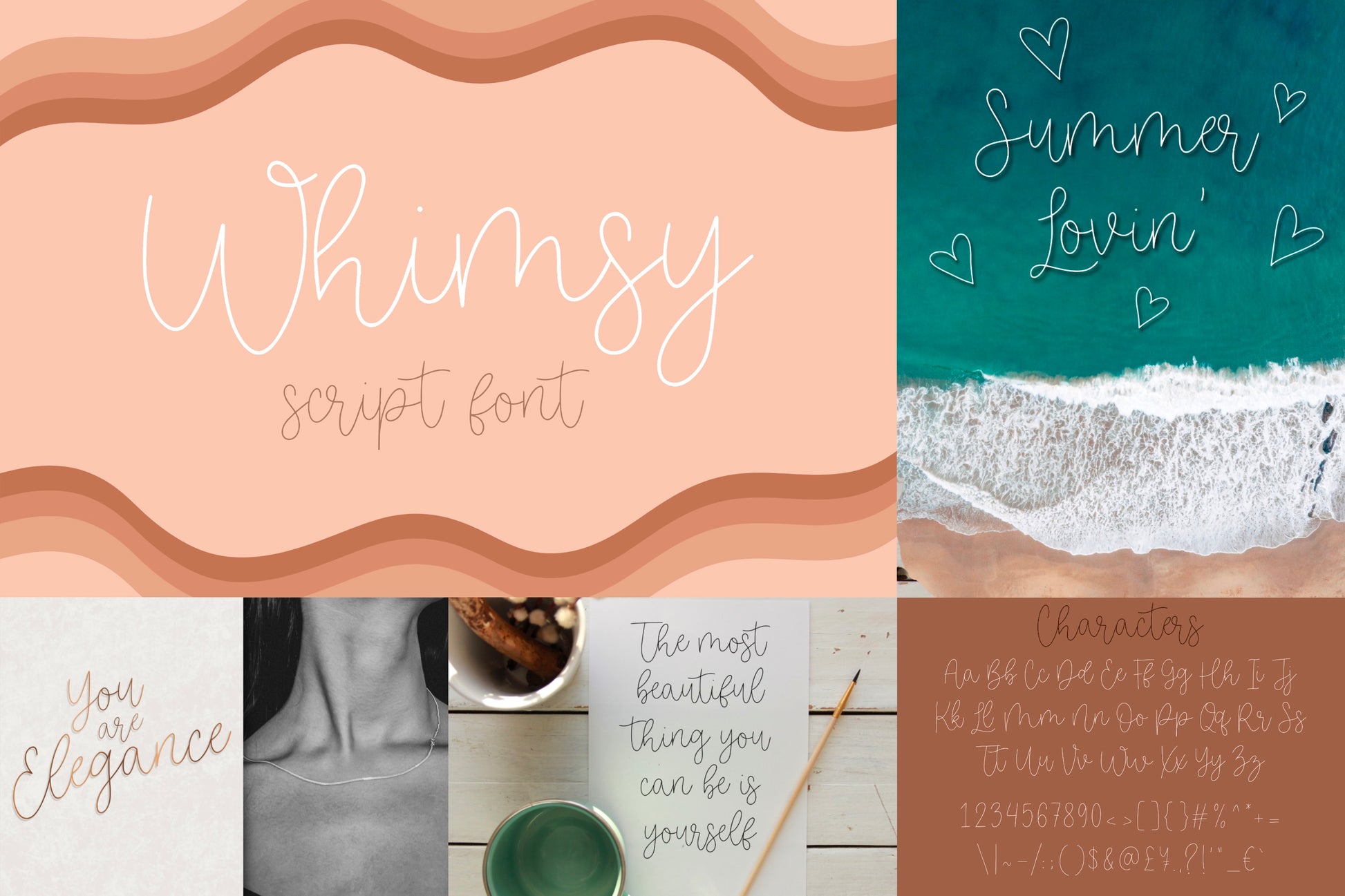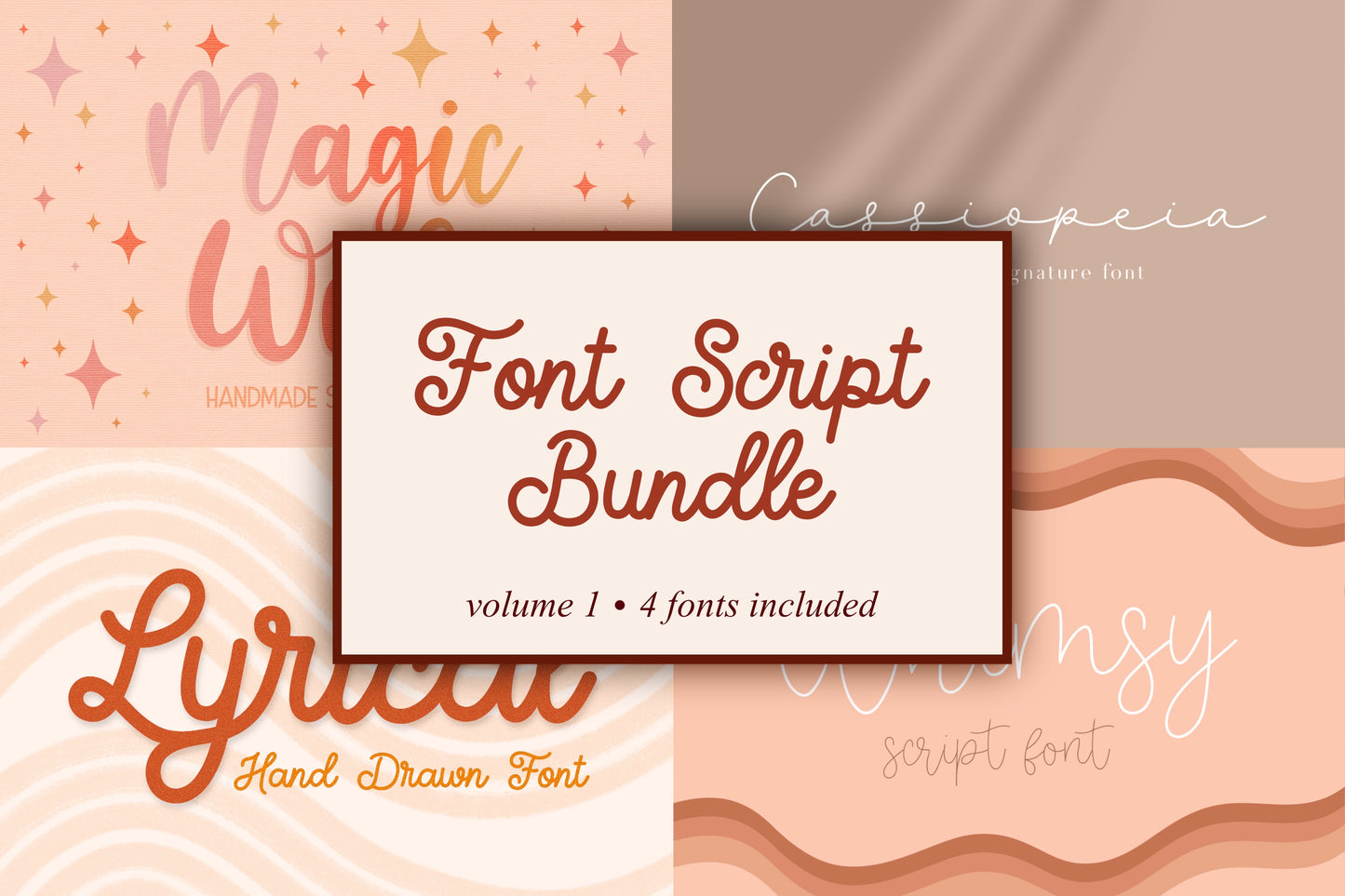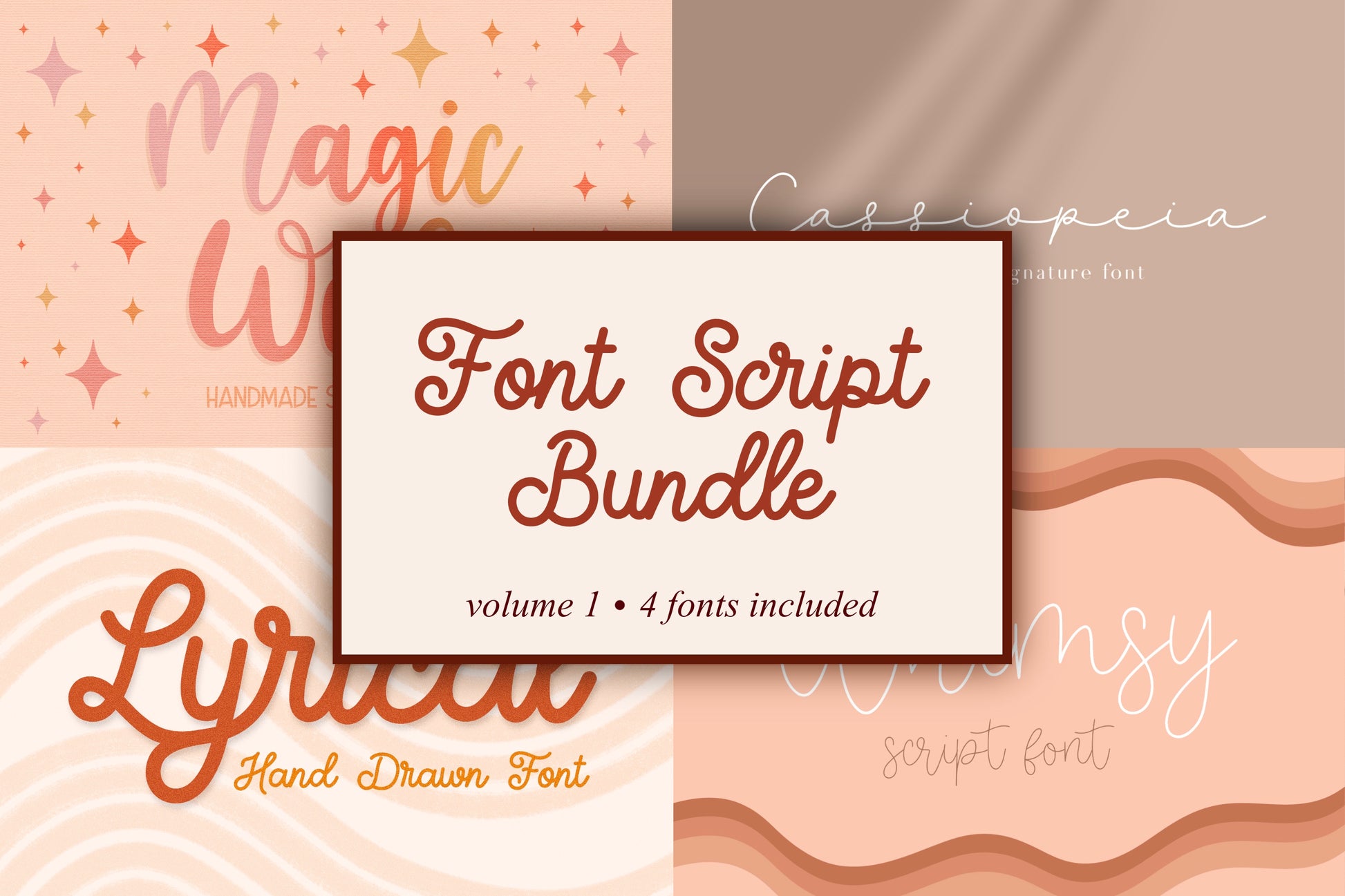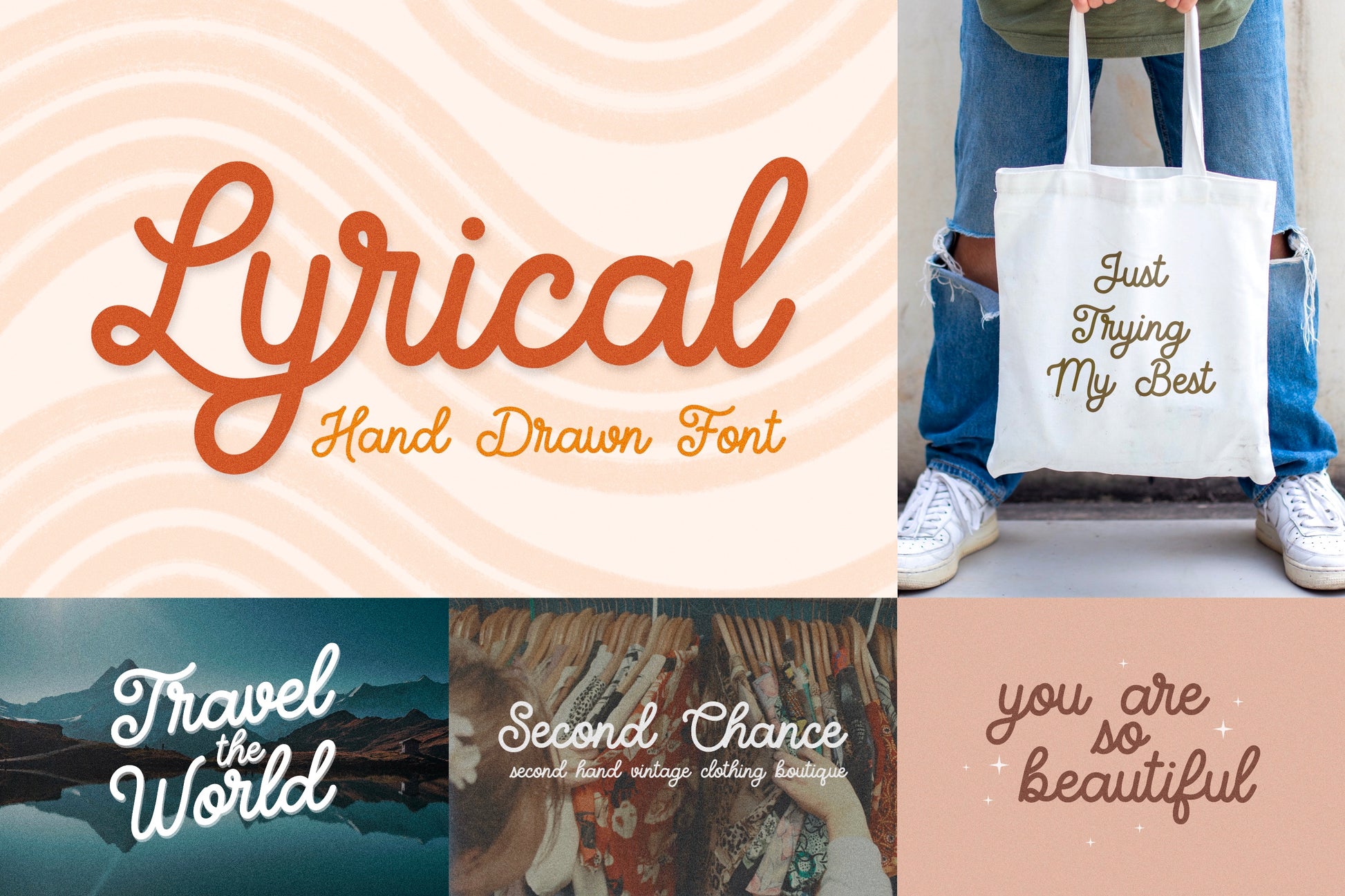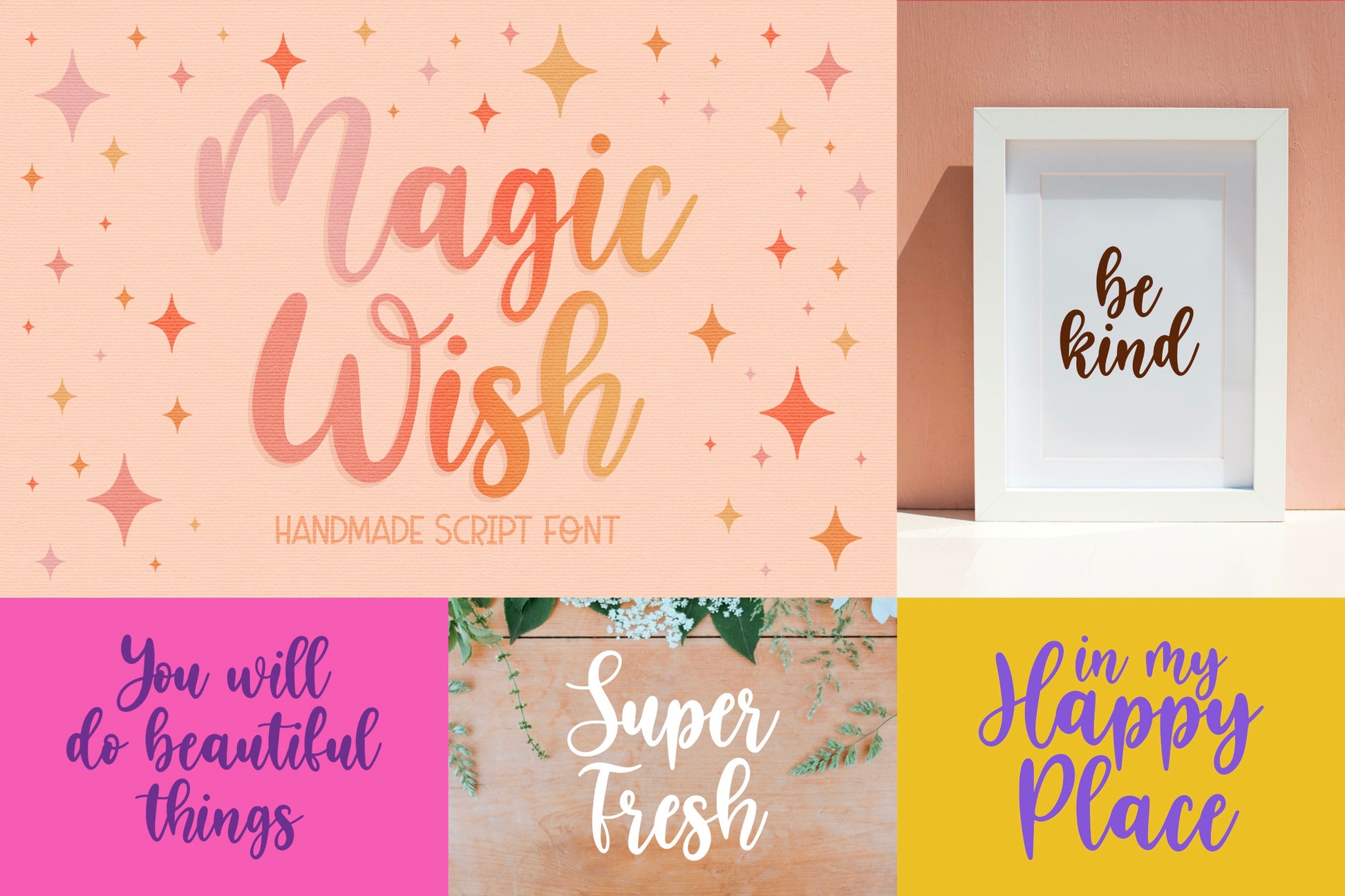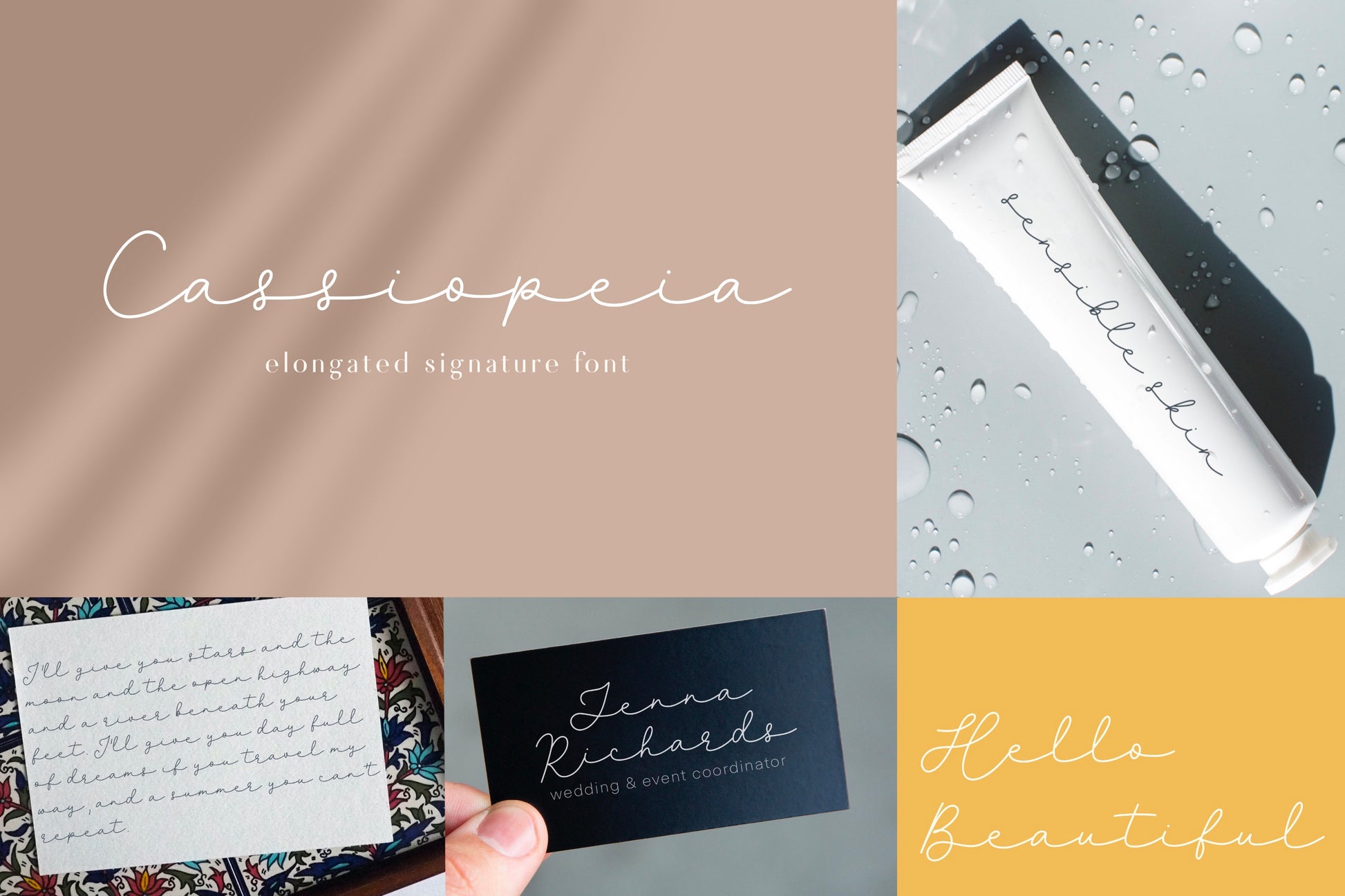
Script Font Bundle | Vol. 1 | 4 Fonts
This is a font bundle including 4 of my bestseller script fonts. All of these fonts are handwritten/hand drawn fonts and they are perfect for any design and work great for branding, logos, posters, magazines, quotes, or even tattoo designs!
- Magic Wish
- Cassiopeia
- Lyrical
- Whimsy